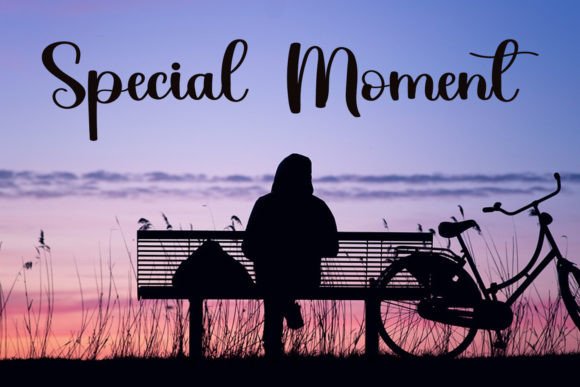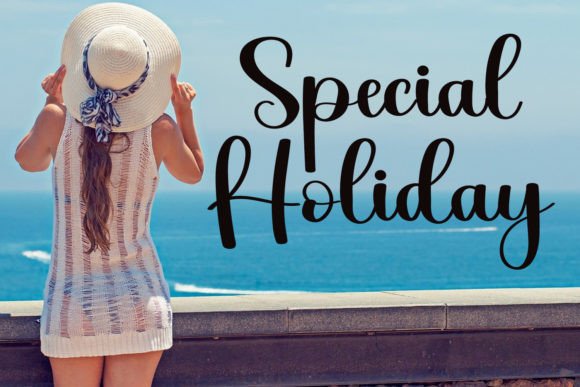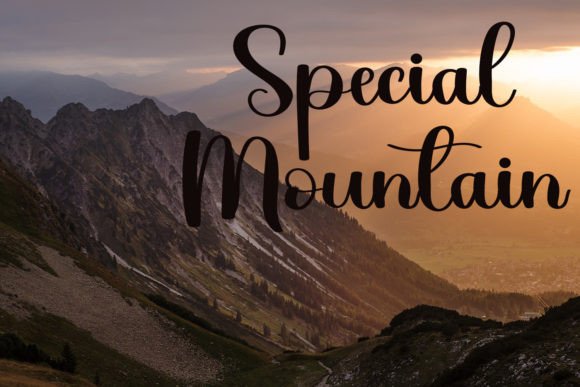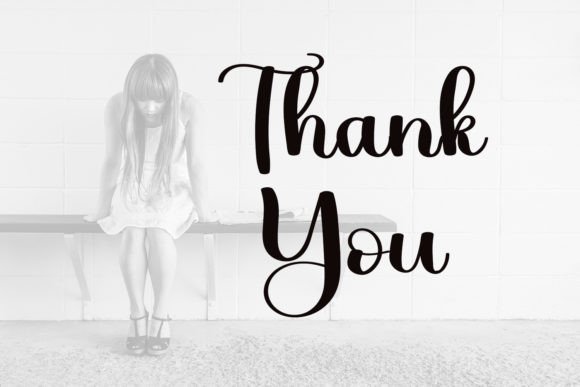
Discover the Charm of Daugther Font: A Symbol of Femininity and Love
Are you looking for a typeface that embodies the spirit of femininity and the special bond between daughters and their loved ones? Look no further than Daugther Font, a beautiful and delicate font that is sure to capture the hearts of designers, crafters, and anyone looking to add a touch of elegance and warmth to their projects.
The Essence of Daugther Font
Daugther Font is a graceful and delicate typeface that exudes a sense of tenderness and warmth. Its elegant letterforms and soft curves make it the perfect choice for projects that require a feminine touch. Whether you’re designing a heartfelt card, a family-oriented project, or a feminine brand, this font is sure to add a touch of sweetness and affection to your designs.
Perfect for Heartfelt Projects
Daugther Font is designed to help you express your feelings and emotions in a beautiful and elegant way. Its gentle and sentimental nature makes it perfect for:
- Heartfelt cards and invitations
- Family-oriented projects and crafts
- Feminine branding and marketing materials
- Personalized gifts and stationery
What Makes Daugther Font Special?
So, what sets Daugther Font apart from other typefaces? Here are a few features that make it truly special:
- Elegant letterforms: Daugther Font features beautiful, flowing letterforms that are both elegant and refined.
- Soft curves: The font’s soft curves give it a gentle and feminine feel that’s perfect for projects that require a touch of warmth and tenderness.
- Versatile: Daugther Font is versatile and can be used for a wide range of projects, from digital designs to print materials.
How to Use Daugther Font in Your Designs
Using Daugther Font in your designs is easy and straightforward. Here are a few tips to get you started:
- Pair it with other fonts: Daugther Font pairs well with other fonts, so feel free to experiment with different combinations to find the perfect look for your project.
- Use it for headings and titles: The font’s elegant letterforms make it perfect for headings and titles, where you want to make a statement.
- Add a personal touch: Use Daugther Font to add a personal touch to your designs, whether it’s a heartfelt message or a special dedication.
Why Designers and Crafters Love Daugther Font
Daugther Font has quickly become a favorite among designers and crafters, and for good reason. Here are a few reasons why:
- Unique and distinctive: Daugther Font is a unique and distinctive typeface that sets itself apart from more traditional fonts.
- Easy to read: Despite its elegant nature, Daugther Font is easy to read, making it perfect for projects that require a clear and concise message.
- Emotional connection: The font’s gentle and sentimental nature helps to create an emotional connection with the reader, making it perfect for projects that require a personal touch.
In conclusion, Daugther Font is a beautiful and delicate typeface that captures the essence of femininity and the special bond between daughters and their loved ones. With its elegant letterforms and soft curves, it emanates a sense of tenderness and warmth, making it perfect for heartfelt cards, family-oriented projects, and feminine branding. Whether you’re a designer, crafter, or simply someone looking to add a touch of elegance and warmth to your projects, Daugther Font is sure to become a favorite in your collection.